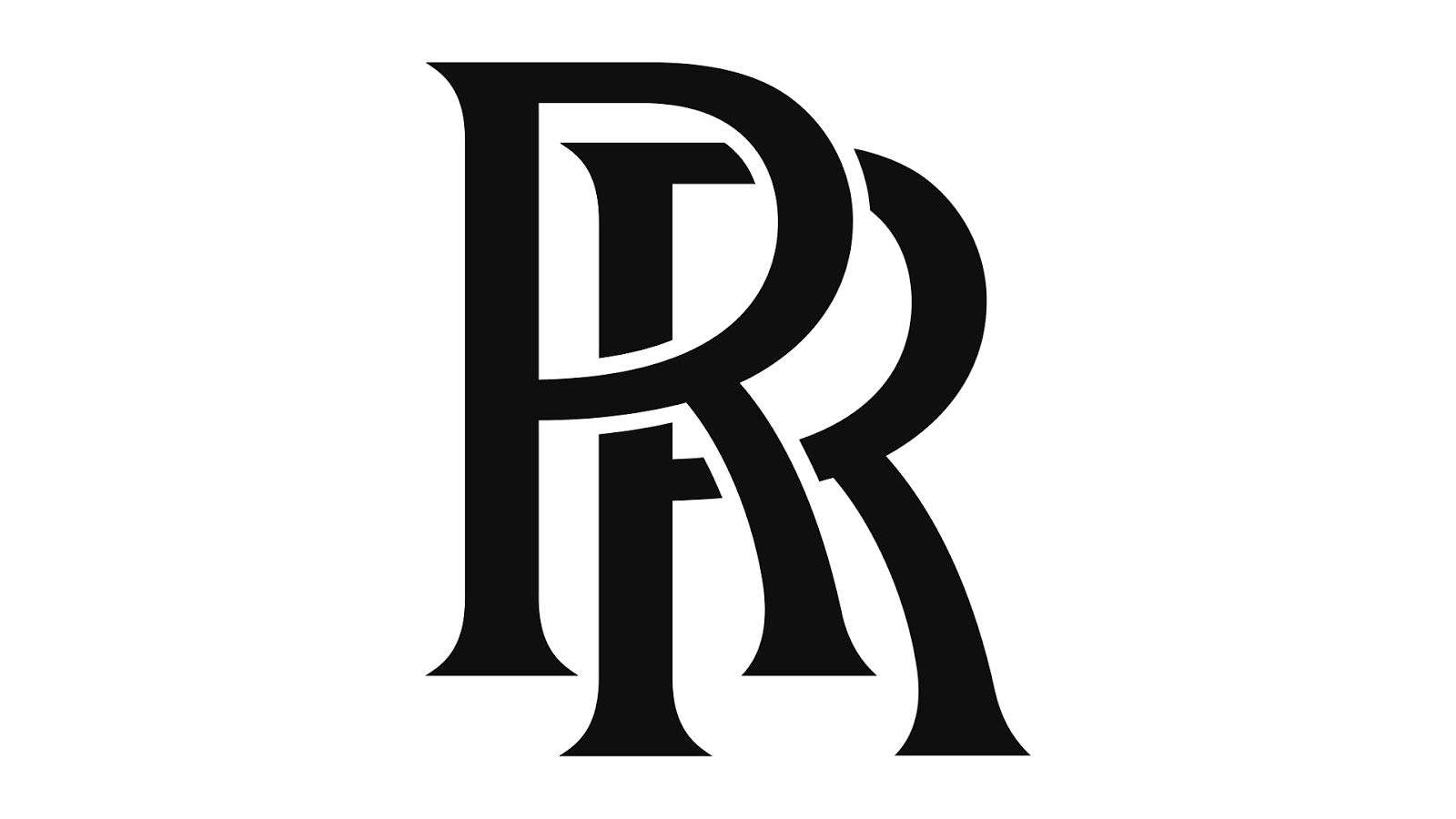
What Font Is The Rolls Royce Logo . rolls royce font and rolls royce logo: rolls royce motor cars is a british luxury automobiles manufacturer.the rolls royce logo features the double r monogram with the text rolls and royce just. the rolls royce logo is composed of the letters rolls and royce above and below the double r monogram. Souvenir gothic urw font is used in its logo while myriad.